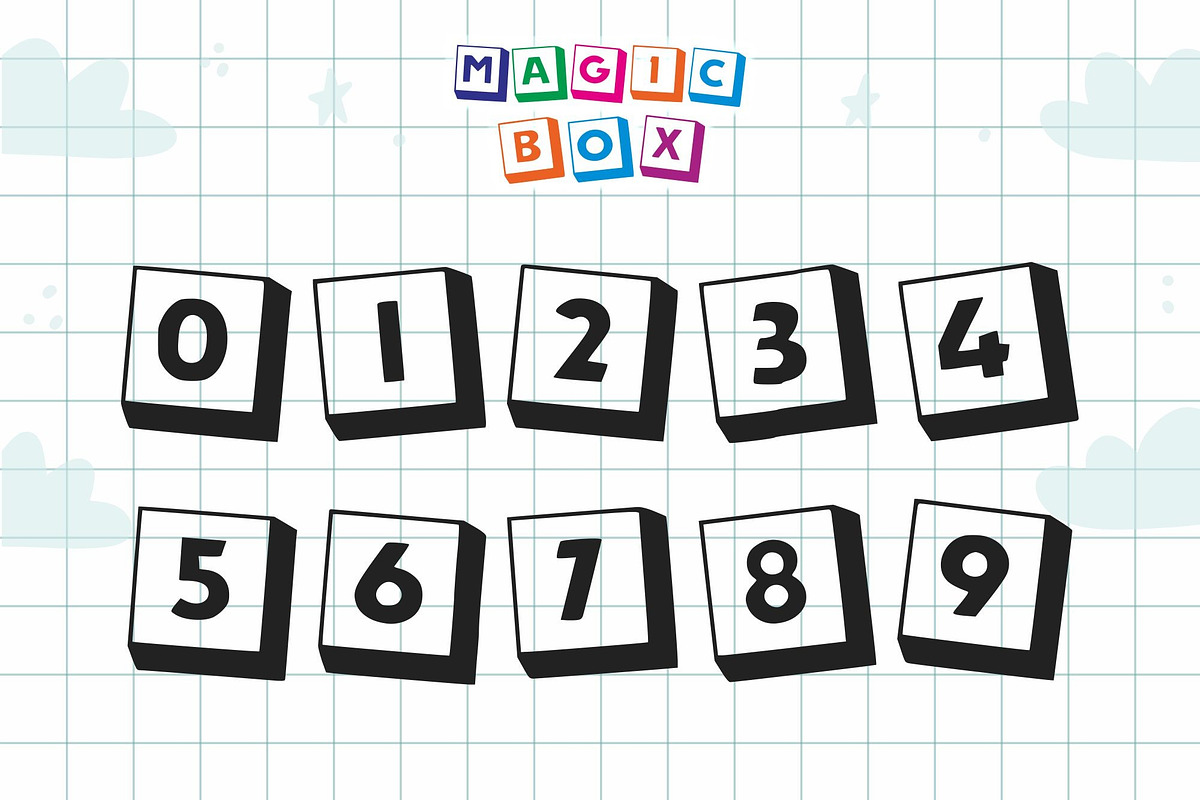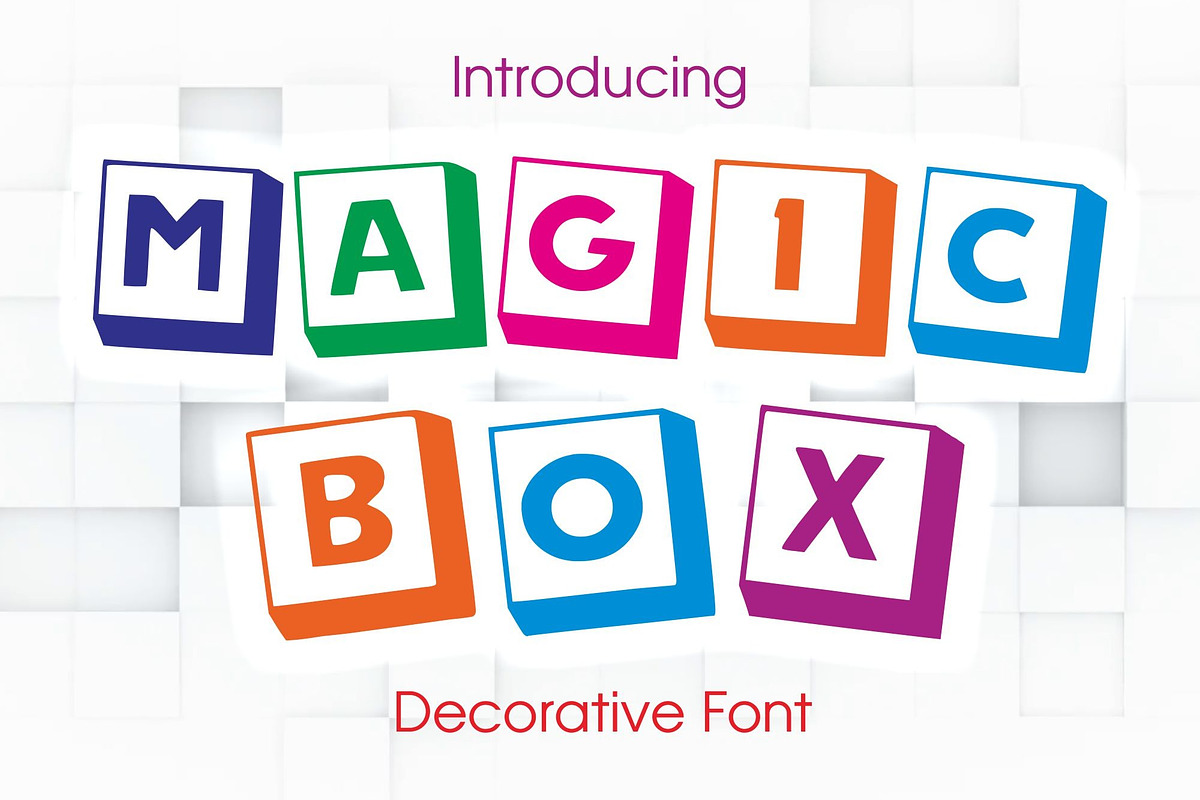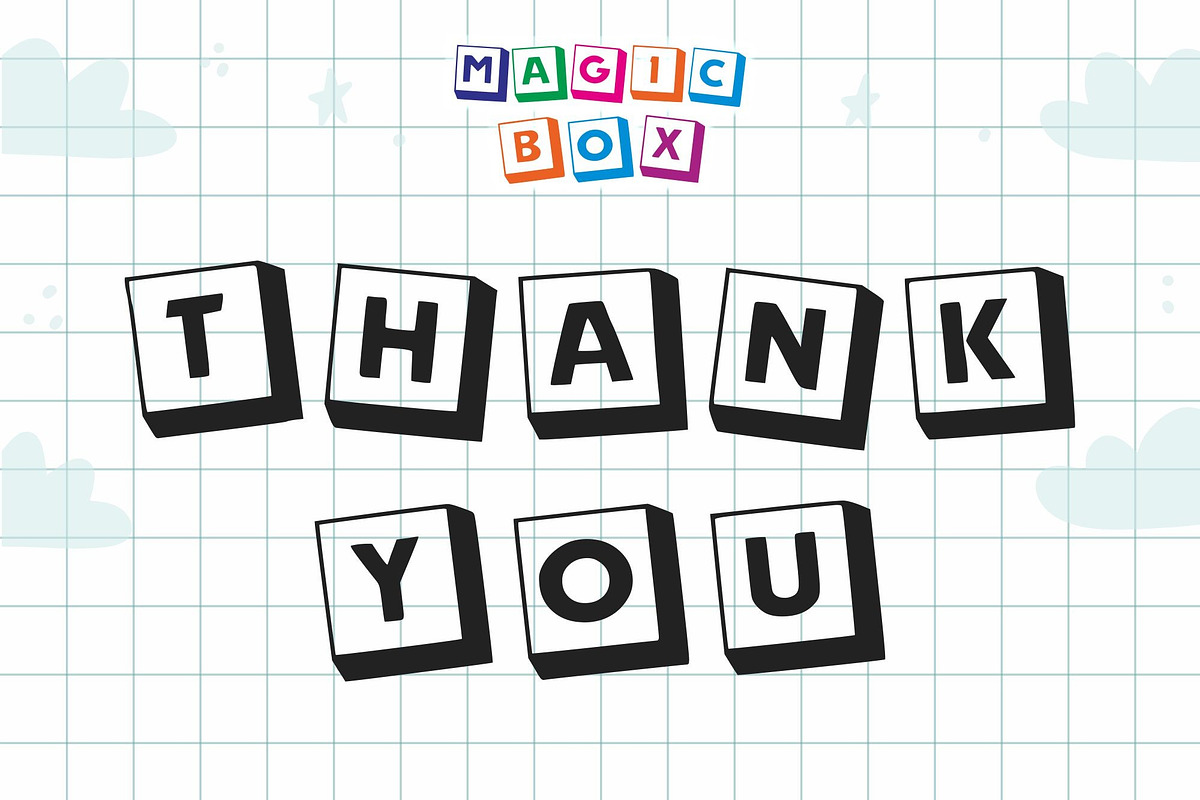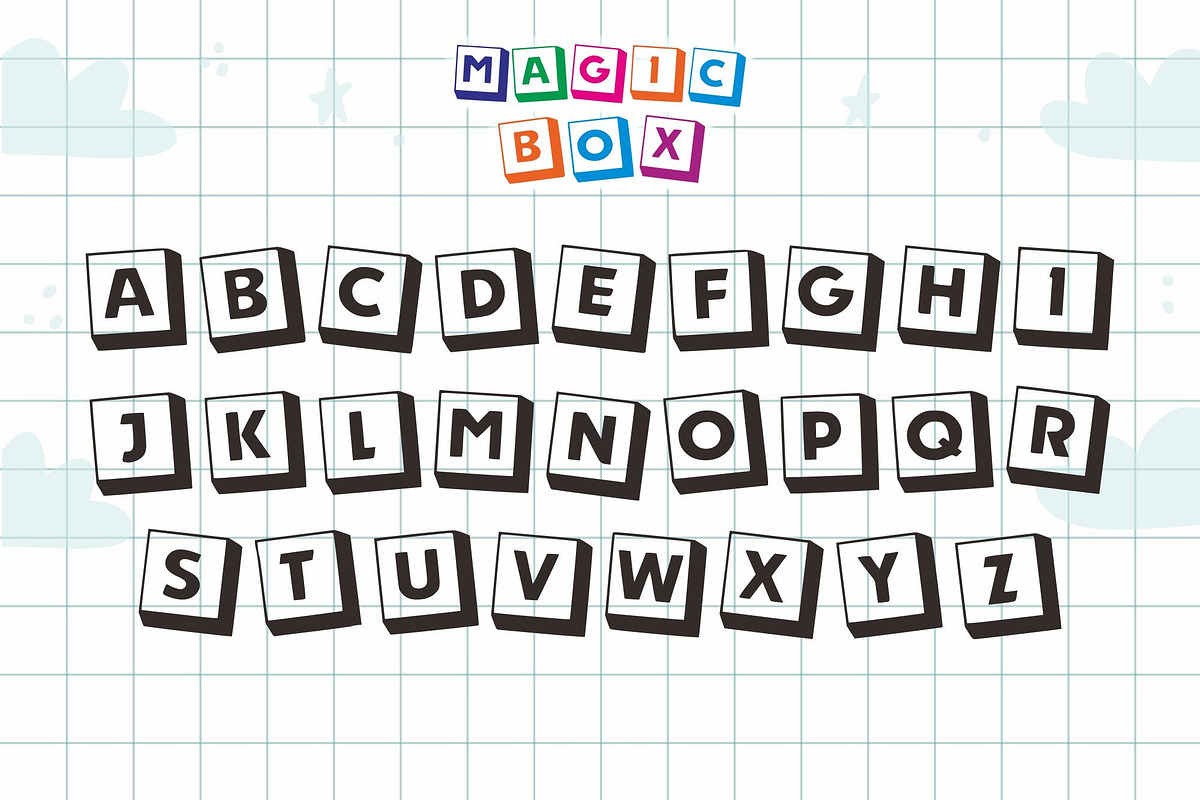
Magic Box
Magic Box is a unique and aesthetic decorative font. You can use this font on prints or other creations that need a different touch & that you can expand on.